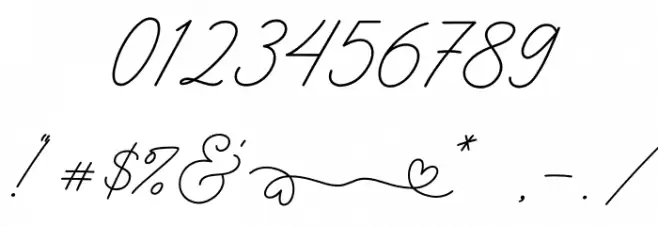
milove Font
milove Description
This elegant script font features flowing, interconnected letters that mimic the fluidity of cursive handwriting. The uppercase letters are tall and slender, with graceful loops and swirls, while the lowercase letters maintain a consistent, smooth flow. The numerals are stylish and maintain the same cursive style, adding a touch of sophistication. Special characters are intricately designed, incorporating delicate flourishes that enhance the overall aesthetic. This font exudes a sense of elegance and refinement, making it ideal for projects that require a personal, handwritten touch.
An elegant script font with flowing, interconnected letters and intricate flourishes from Uncategorized fonts.
- Overall Style: Elegant